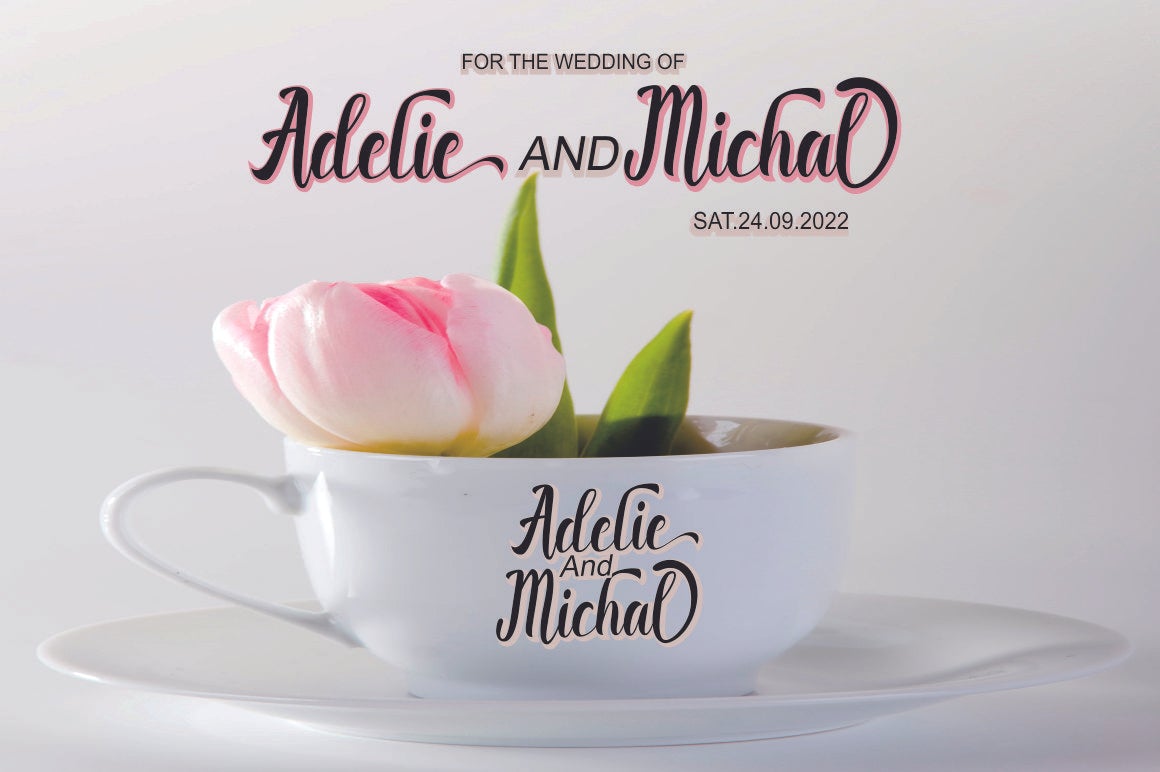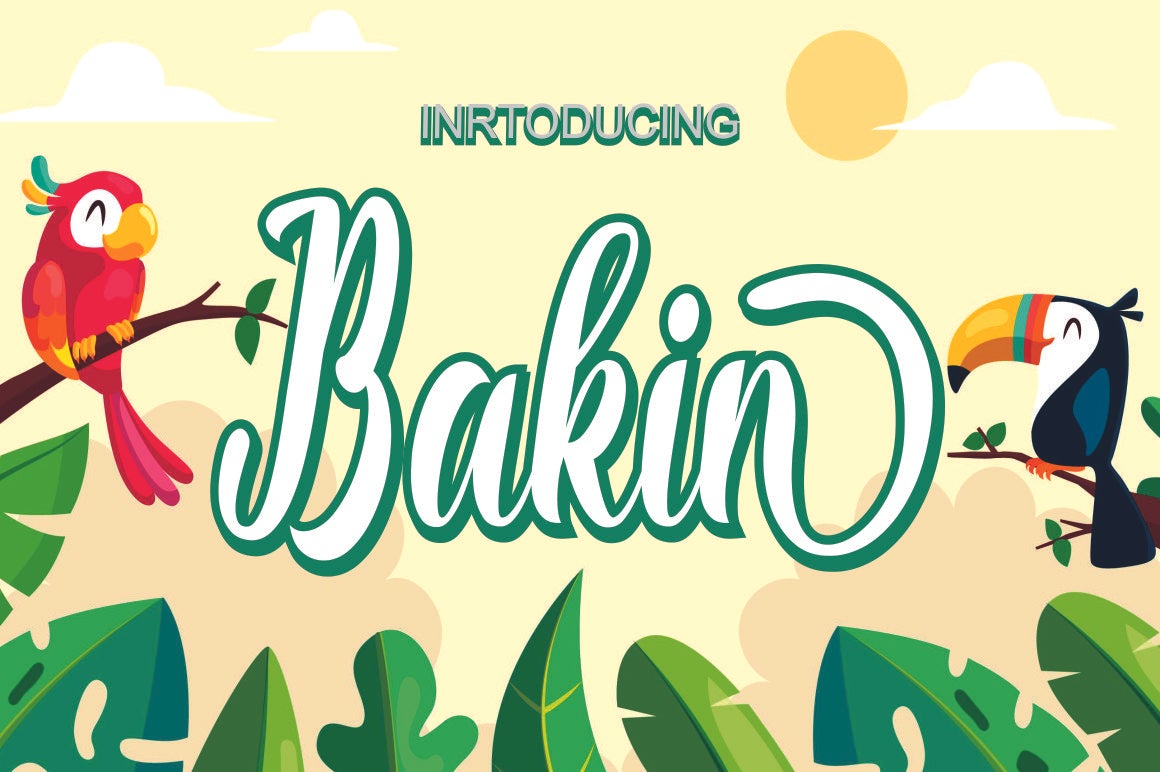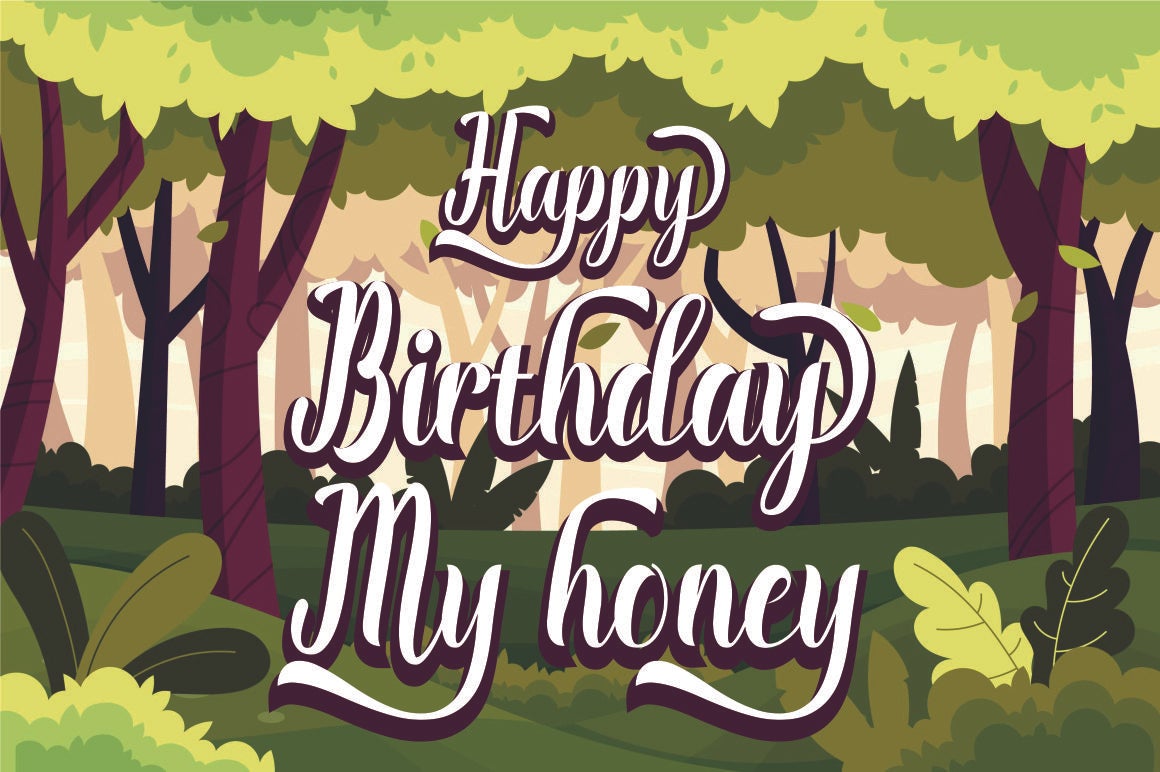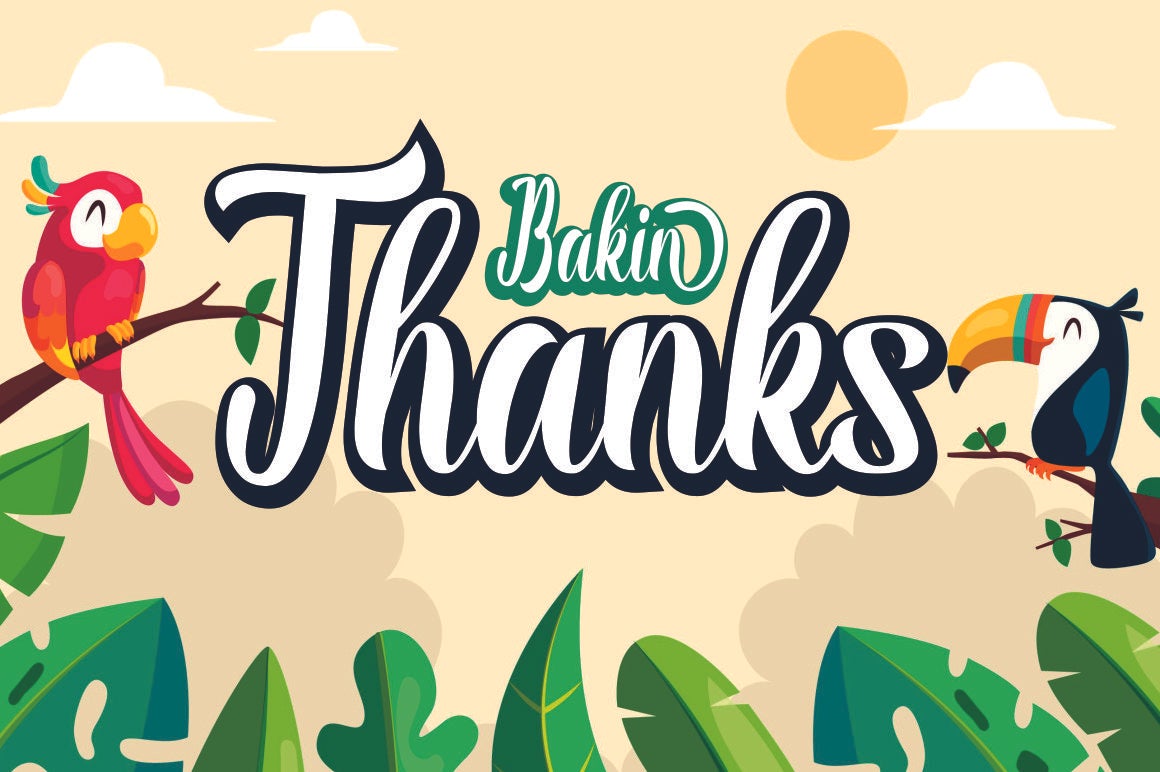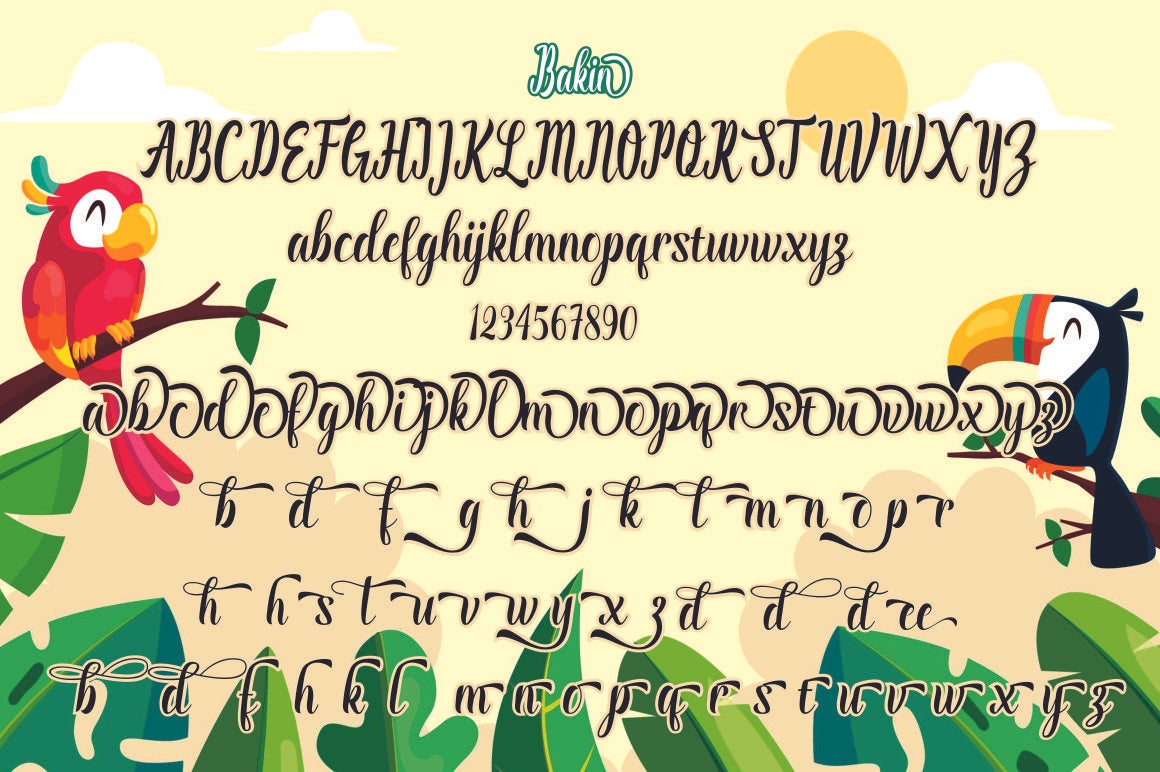
About Bakin
Bakin new calligraphy fonts, fresh, cute, attractive, funny with relatable hearts. Great for greeting cards, branding materials, business cards, quotes, posters and more! Bakin includes many alternative characters. Encoded with Unicode PUA, which allows full access to all additional characters without having special design software. Mac users can use Font Book. Windows users can use Character Map to view and copy any additional characters to paste into your favorite text editor. For people with opentype-enabled software: Alternatives can be accessed by activating the \”Alternative Style\” and \”Ligature\” buttons on Photoshop’s Character panel, or through any software with a glyph panel, e.g. Adobe Illustrator, Photoshop CC, Inkscape.